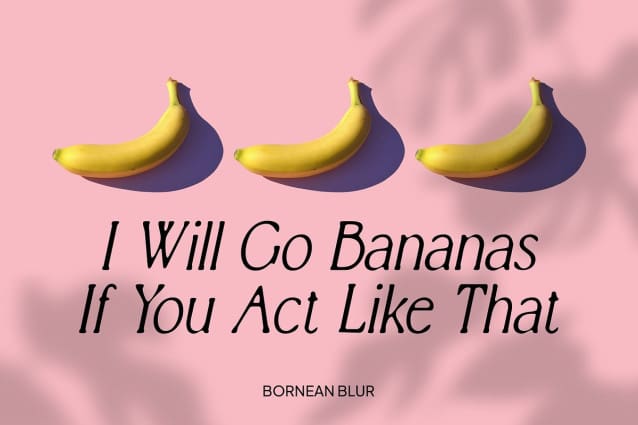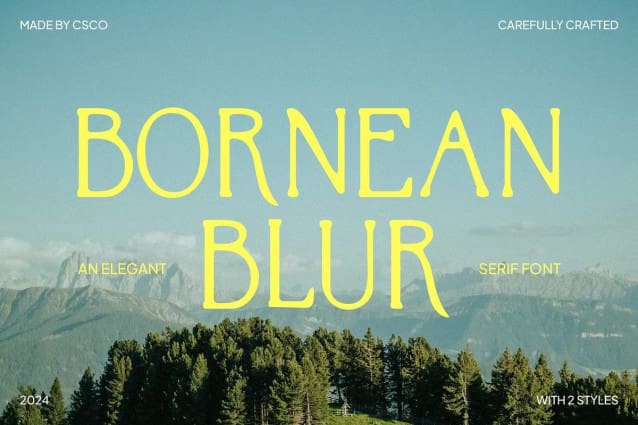
Bornean Blur Font
Bornean Blur Font is a modern serif font with an elegant style and blur effect. Ideal for designs aiming to convey a luxurious yet modern impression, this font gives a unique and appealing look to various types of designs.
Ideal for Sophisticated Designs Perfect for headlines, banners, and other display purposes, Bornean Blur ensures your message is both seen and remembered. Its modern serif style, combined with an elegant blur effect, makes it a sophisticated choice for designs seeking to create a luxurious yet modern impression.
Versatile and Elegant Despite its luxurious appearance, Bornean Blur remains versatile and elegant. Its serif font format makes it suitable for a wide range of projects, from branding to digital designs, where a font with a modern and luxurious vibe is essential for making a statement.
Perfect for Adding a Unique Luxurious Touch Bornean Blur is ideal for projects requiring a font with a unique luxurious touch. Whether you’re designing a poster, logo, or website, this font will undoubtedly add a distinct and memorable element to your designs.